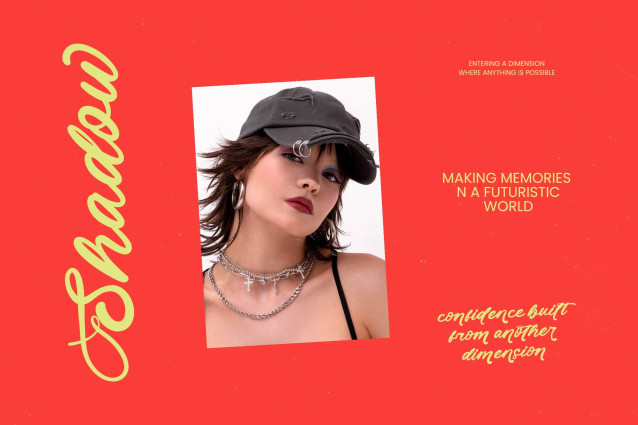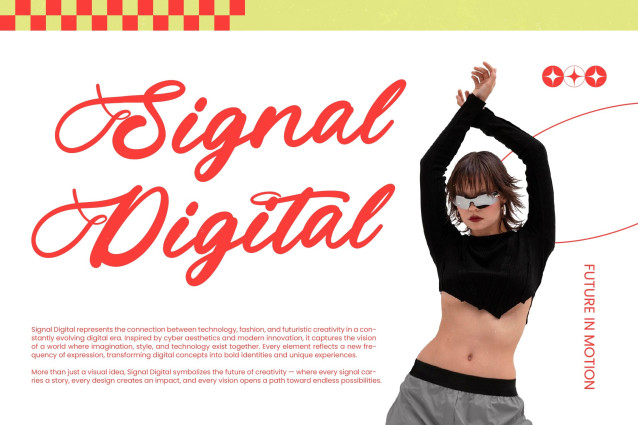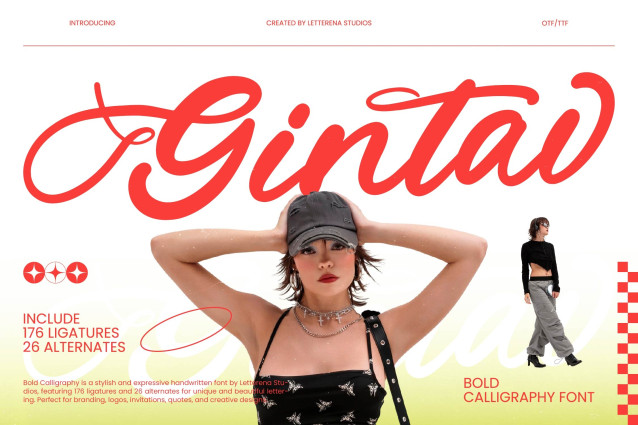
Gintav – Bold Calligraphy Font
Elevate your creative vision with a typeface that embodies raw energy and sophisticated flair. Gintav – Bold Calligraphy Font is a masterclass in expressive typography, blending the fluidity of hand-lettering with a powerful, high-impact presence. Its thick, confident strokes create a striking visual rhythm that demands attention, making it an essential tool for designers seeking a contemporary edge. This stylish handwritten font is built to deliver a personalized, artisanal feel while maintaining professional-grade legibility across various digital and print media.
Discover the ultimate solution for high-end branding and high-visibility projects. This typeface is perfect for luxury branding, streetwear apparel, social media graphics, and premium packaging designs. Whether you are crafting an eye-catching logo or an elegant wedding invitation, Gintav – Bold Calligraphy Font provides the artistic versatility needed to stand out in a crowded market. It is also an exceptional choice for editorial design and high-fashion headlines, where its bold character and fluid motion can truly shine.